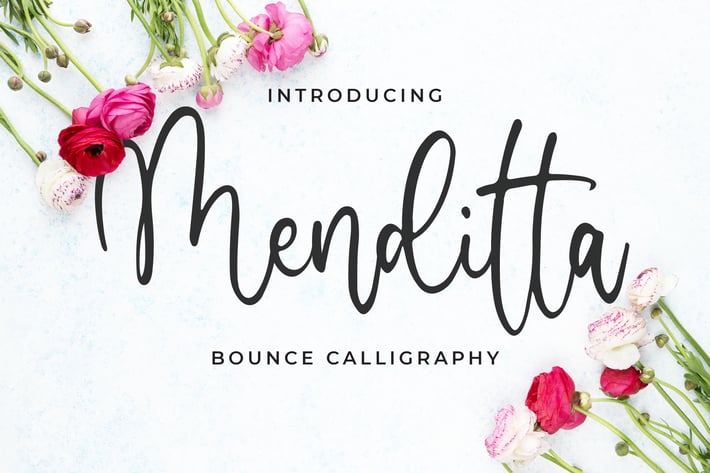
Menditta - Bounce Calligraphy Font
Introducing of our new product the name is Menditta Bounce Calligraphy Font. Menditta made by brush pen into digital this font is a Feminine theme very good for logo, signature, poster, fashion, quote poster, flyer, landing page etc.